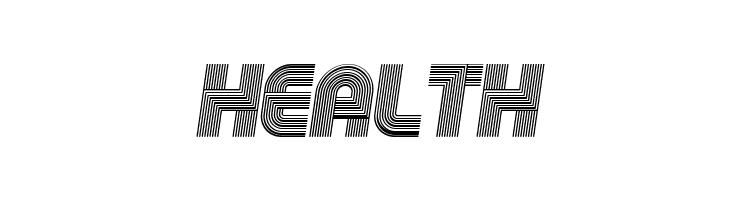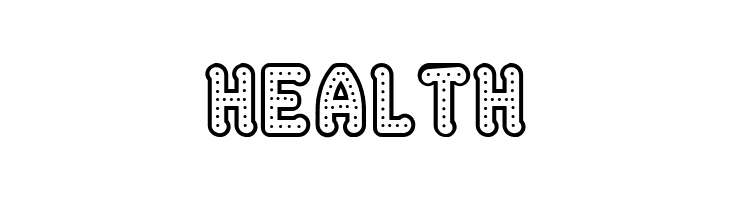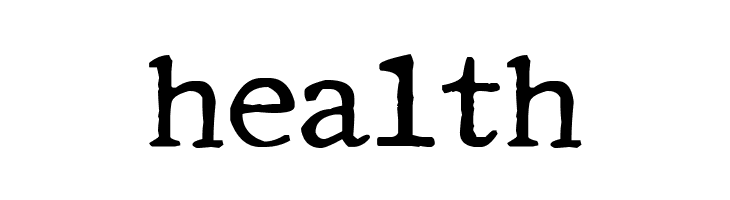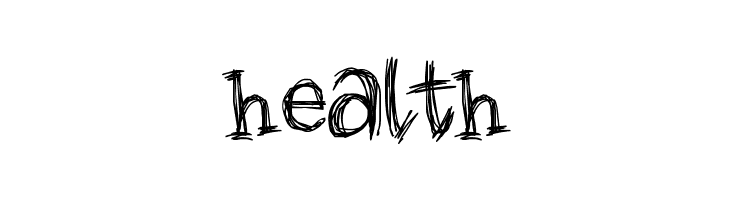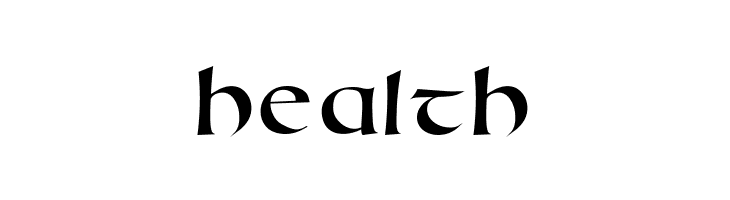
A bold, decorative font with intricate dot detailing inside each character.
A bold, decorative font with a unique outline and inline design, perfect for striking headlines.
A bold, hollow font with a dotted pattern, perfect for decorative use.
A bold, decorative font with a unique dotted pattern.
A modern take on historical script with bold, angular strokes and artistic flair.
A rugged, hand-drawn font with a rough, textured appearance.
A vintage typewriter-style font with a bold, distressed appearance.
A hand-drawn, artistic font with a bold, textured appearance.
A bold, italicized font with parallel lines creating a dynamic, modern look.
A decorative font with multi-line, geometric characters for a bold, modern look.